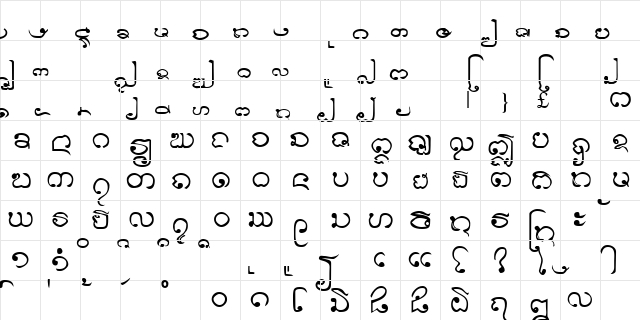
Lao Dhamma Normal
Design Context for Lao Dhamma Typeface
Lao Dhamma offers clean, dependable letterforms without strong stylistic allegiance, making it a practical choice for designers who need flexibility.